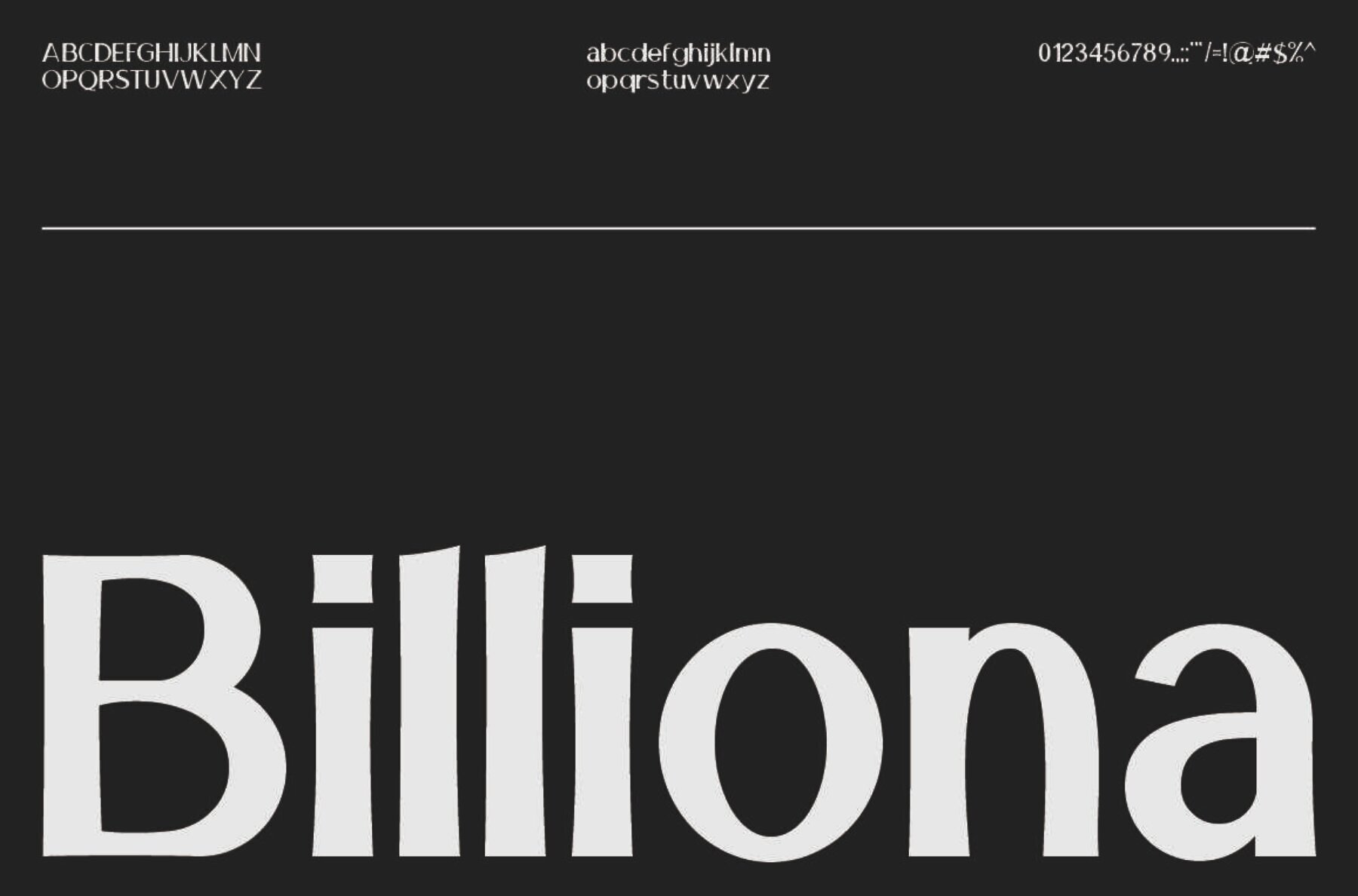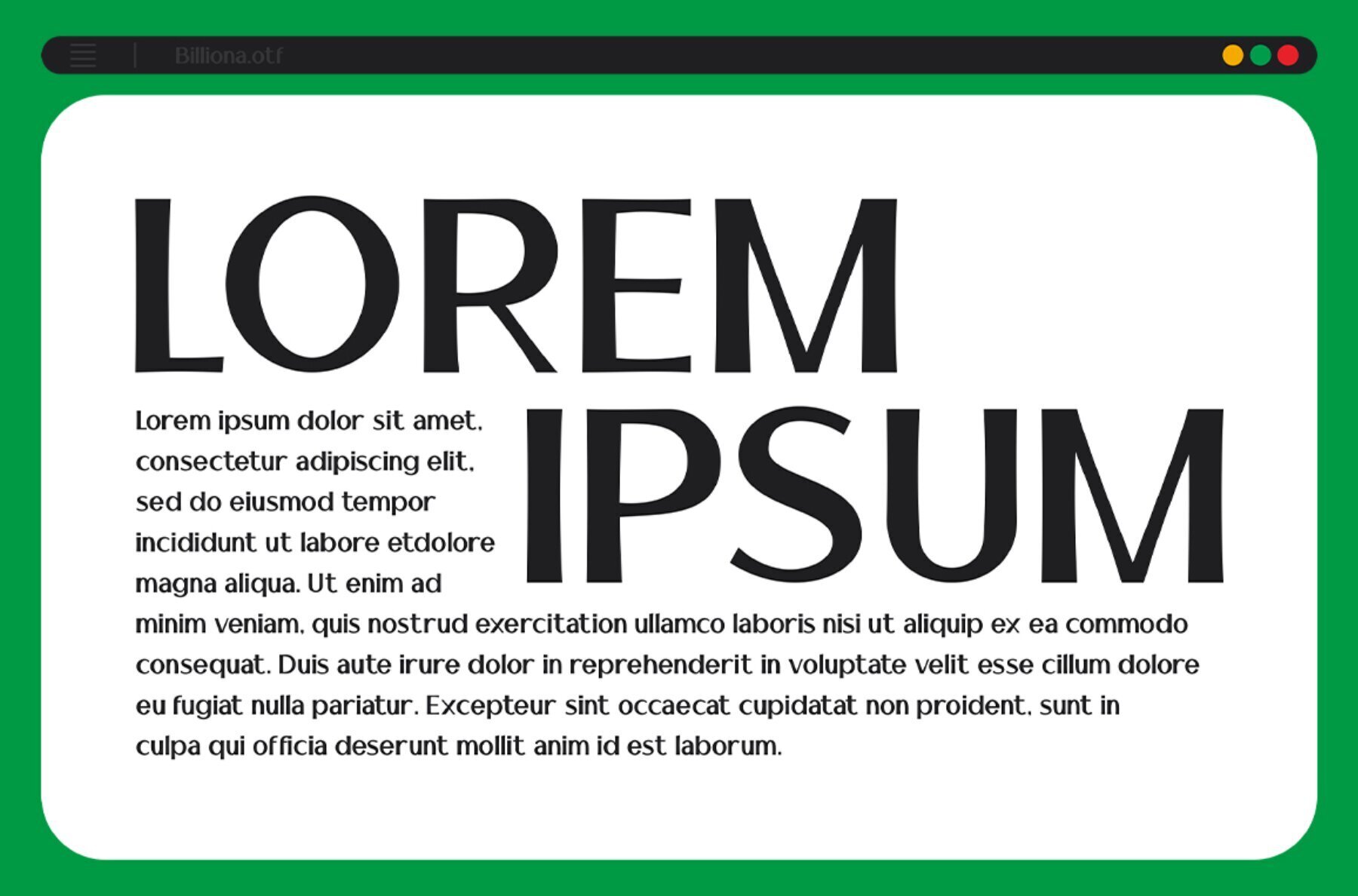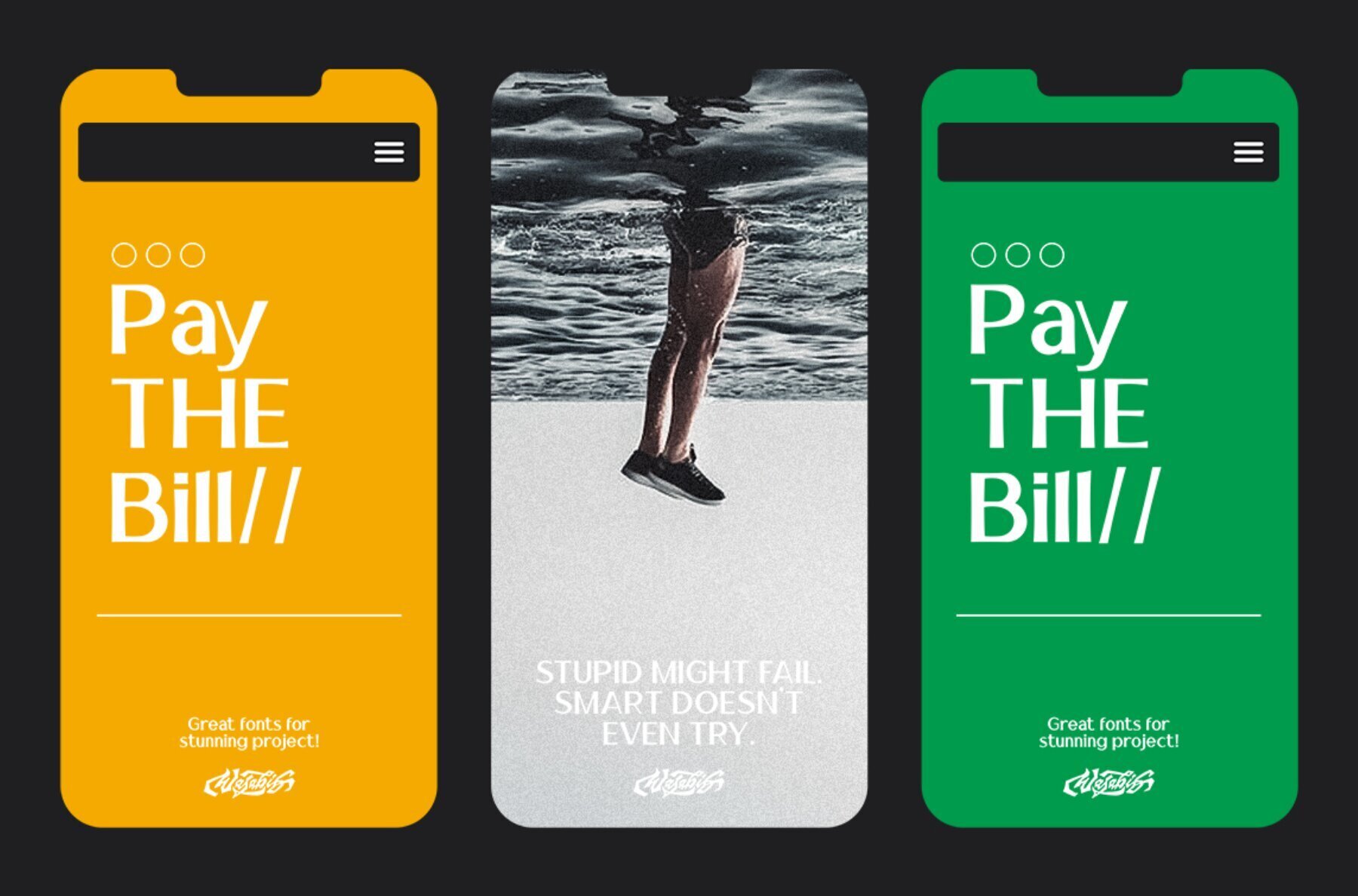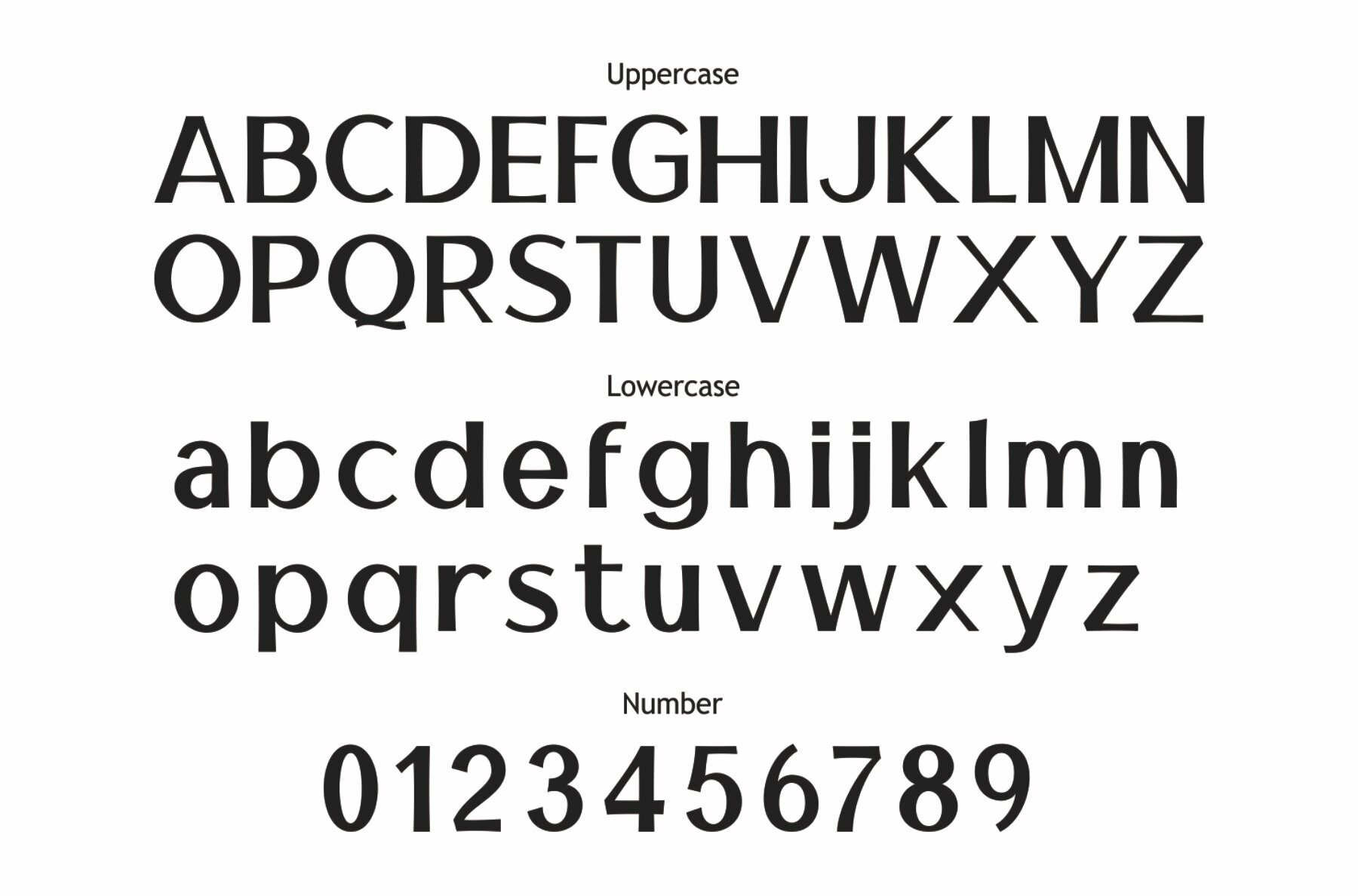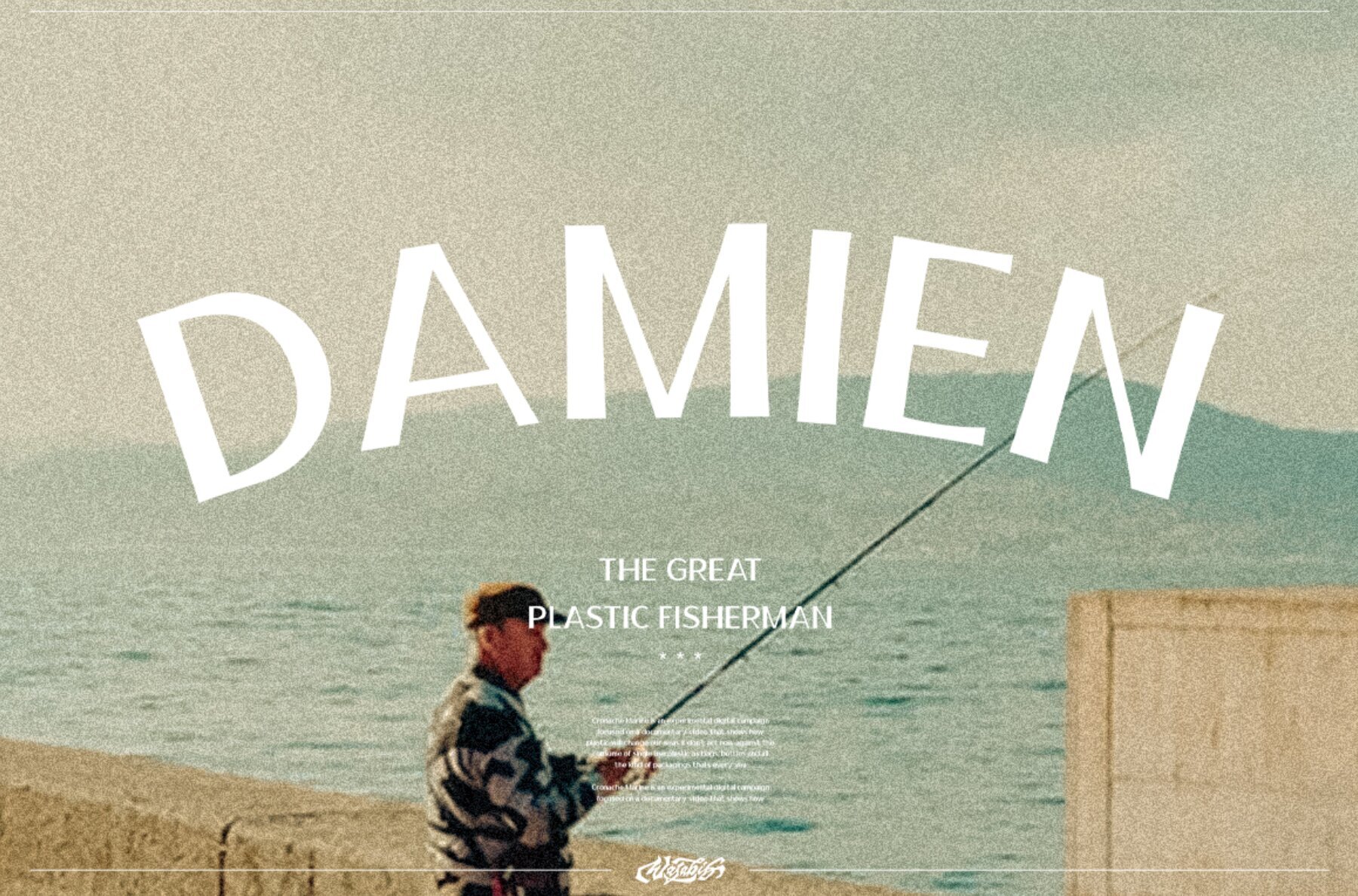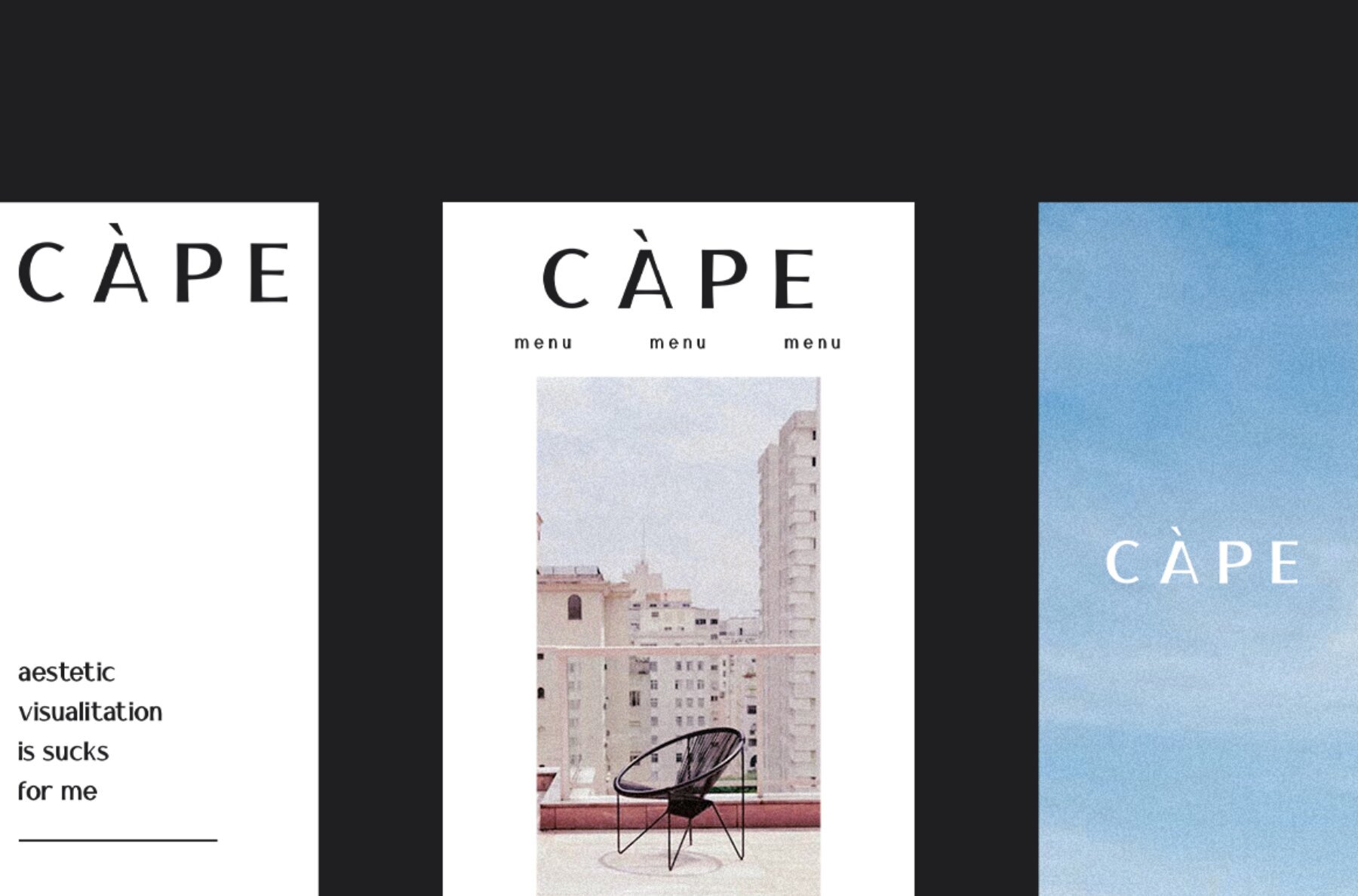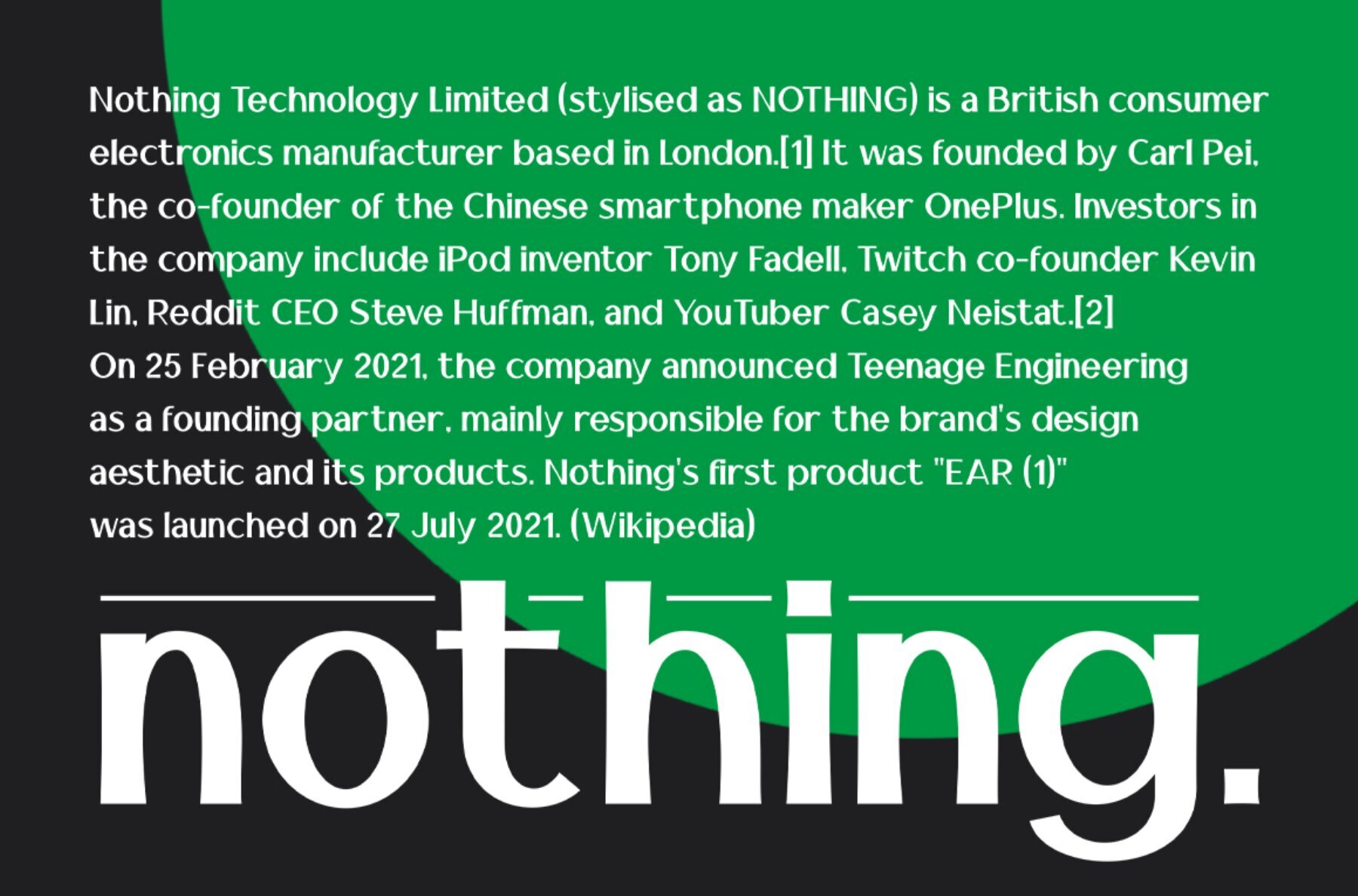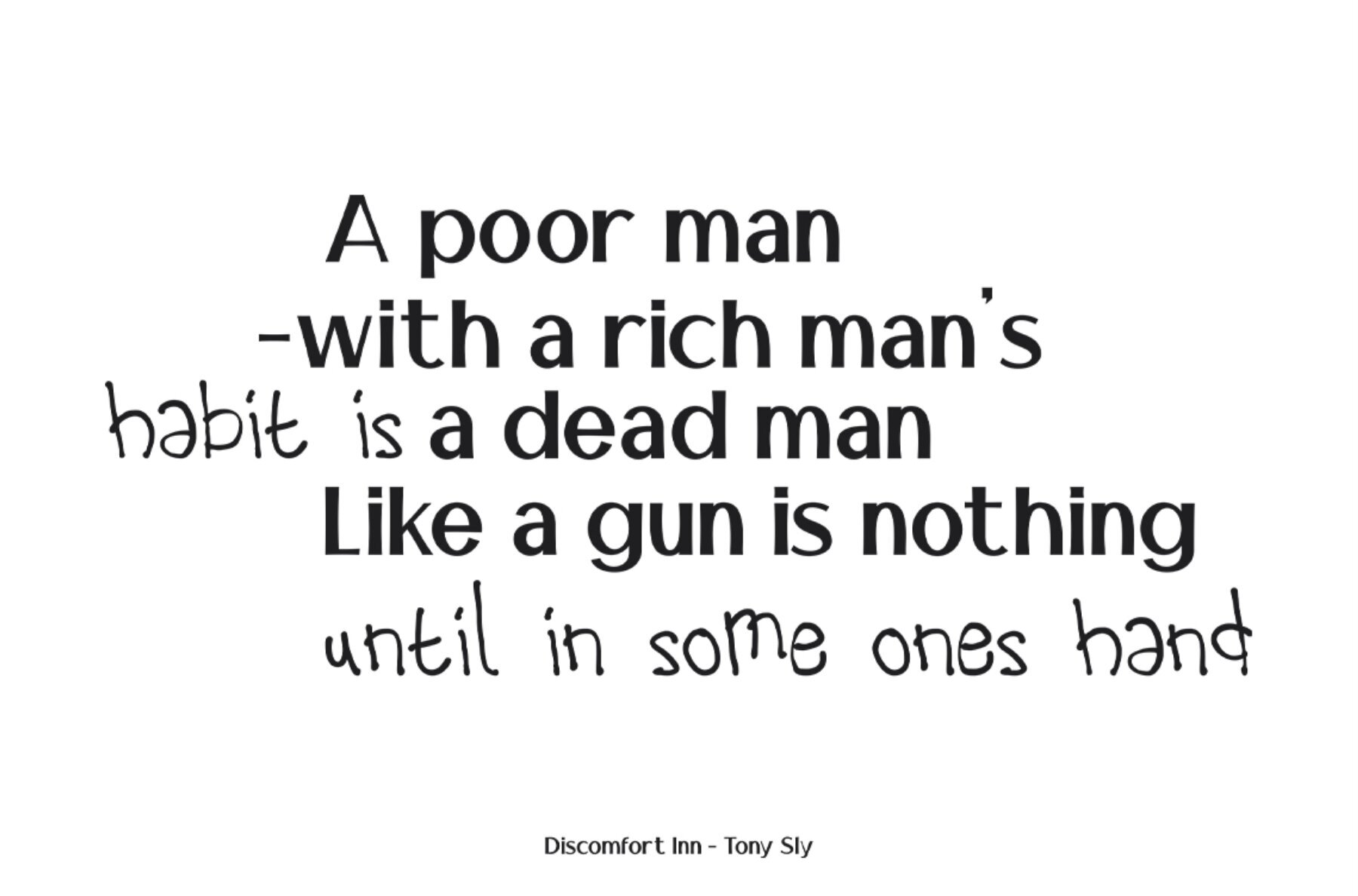
Billiona Font
Billiona Regular
Introducing Billiona "Elegance Serif" - a modern, simple serif font that is perfectly suited for book flyers and corporate materials. This typeface strikes a harmonious balance between elegance and simplicity, making it an ideal choice for conveying professionalism and sophistication. Elegance Serif features clean, refined letterforms with subtle serifs that add a touch of classic charm. Its simplicity is its strength, as it effortlessly captures attention without overwhelming the reader. The minimalistic design of each character ensures excellent legibility, making it easy for readers to absorb the information presented. The timeless appeal of Elegance Serif makes it an excellent choice for a wide range of applications, particularly in the realm of book flyers and corporate materials. Whether you're designing a book cover, promotional flyer, or corporate brochure, this font will lend a sense of polished professionalism to your project.